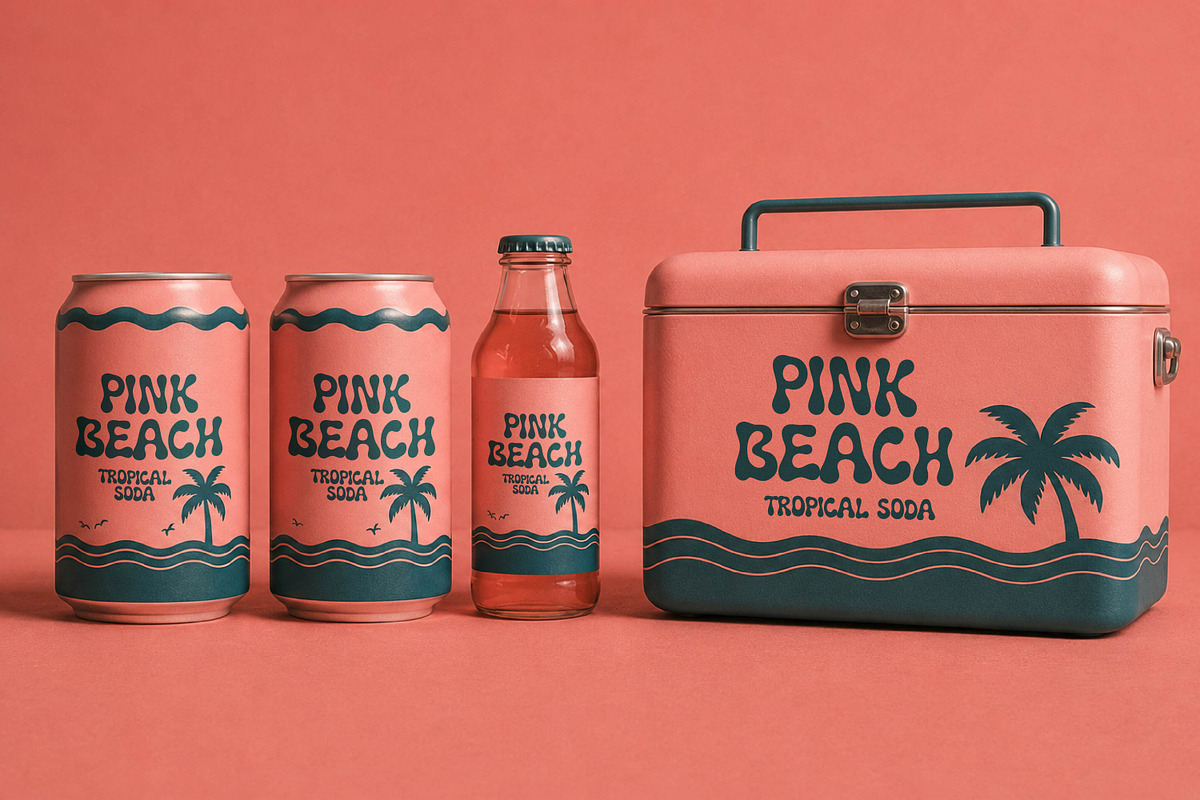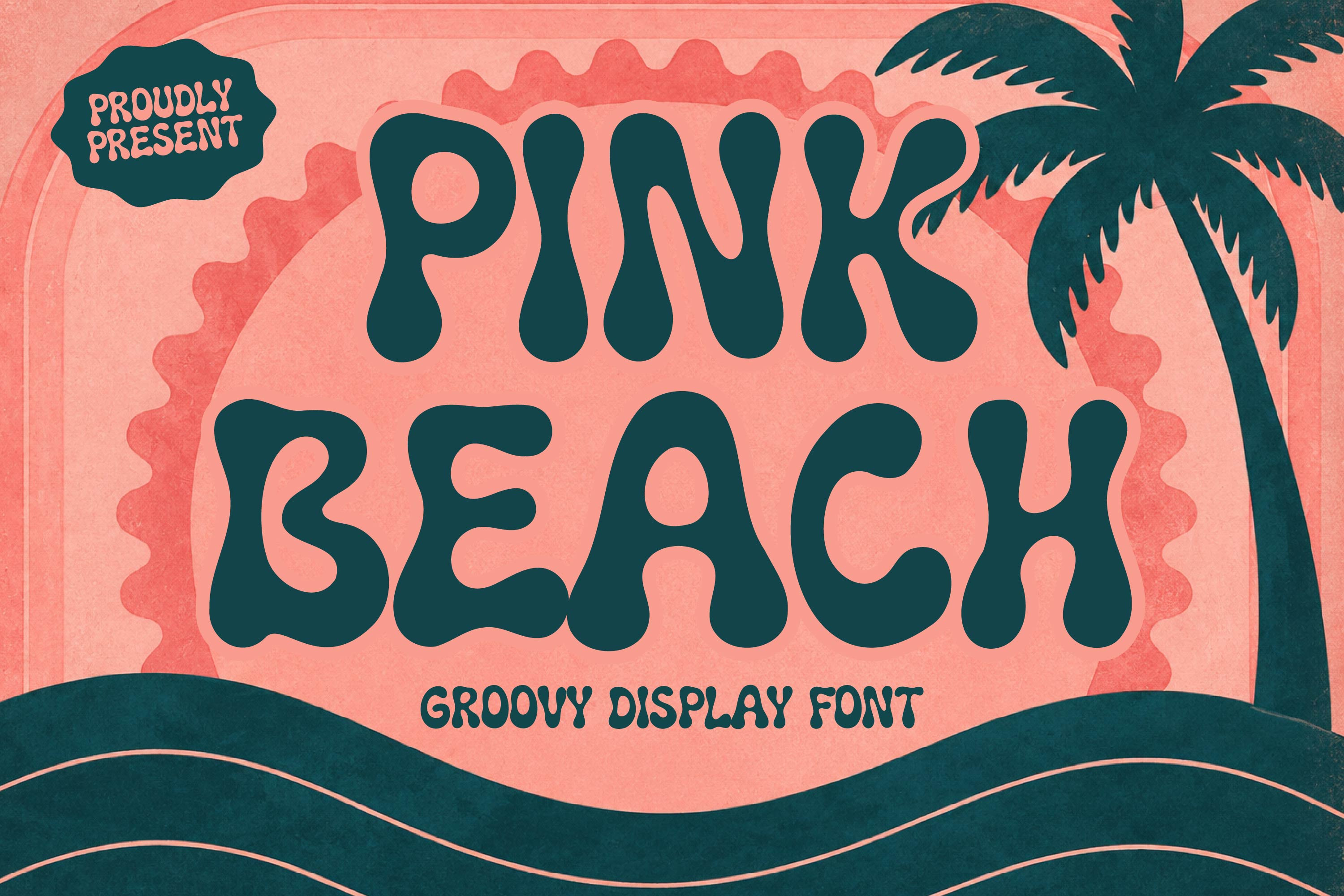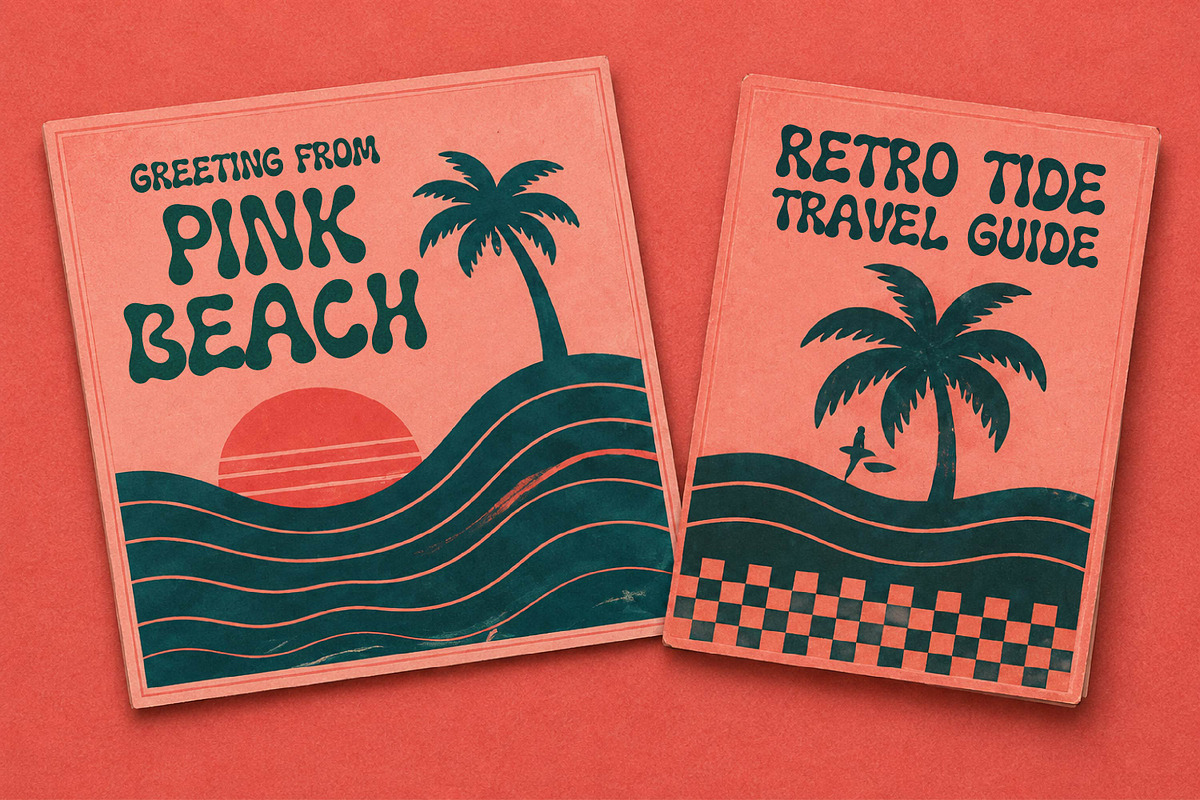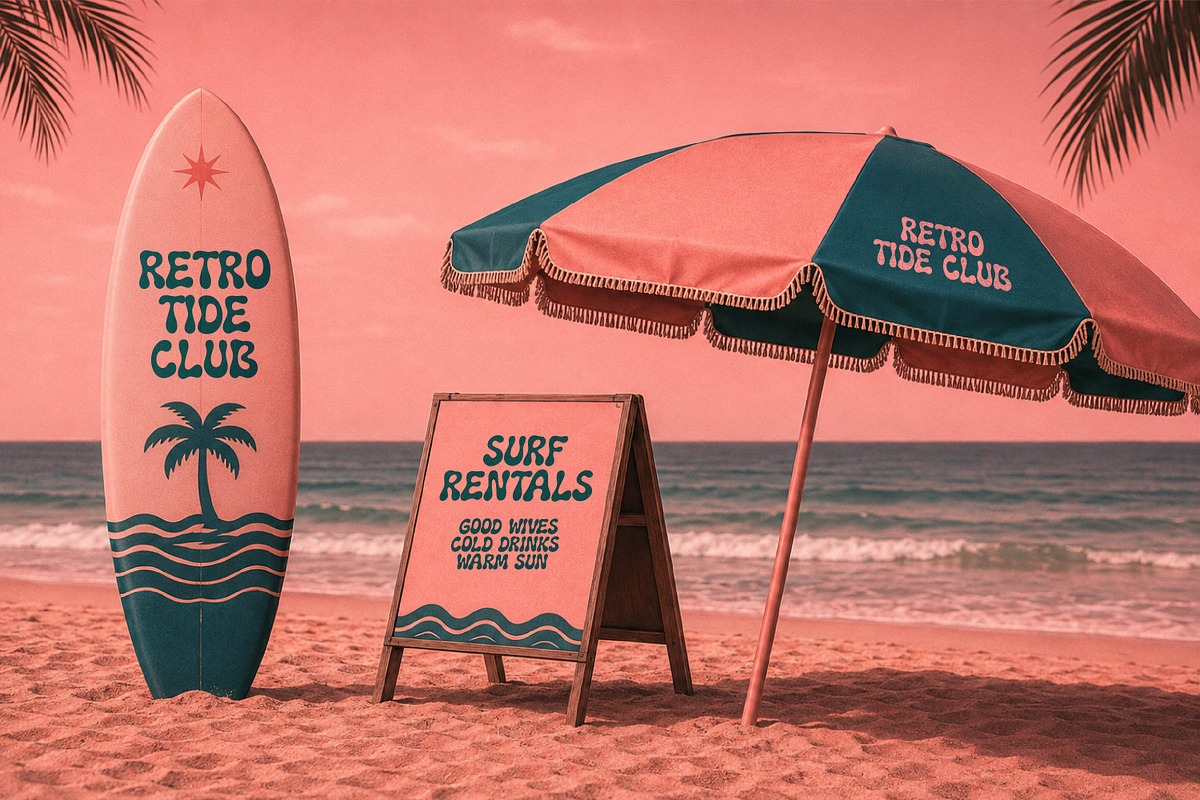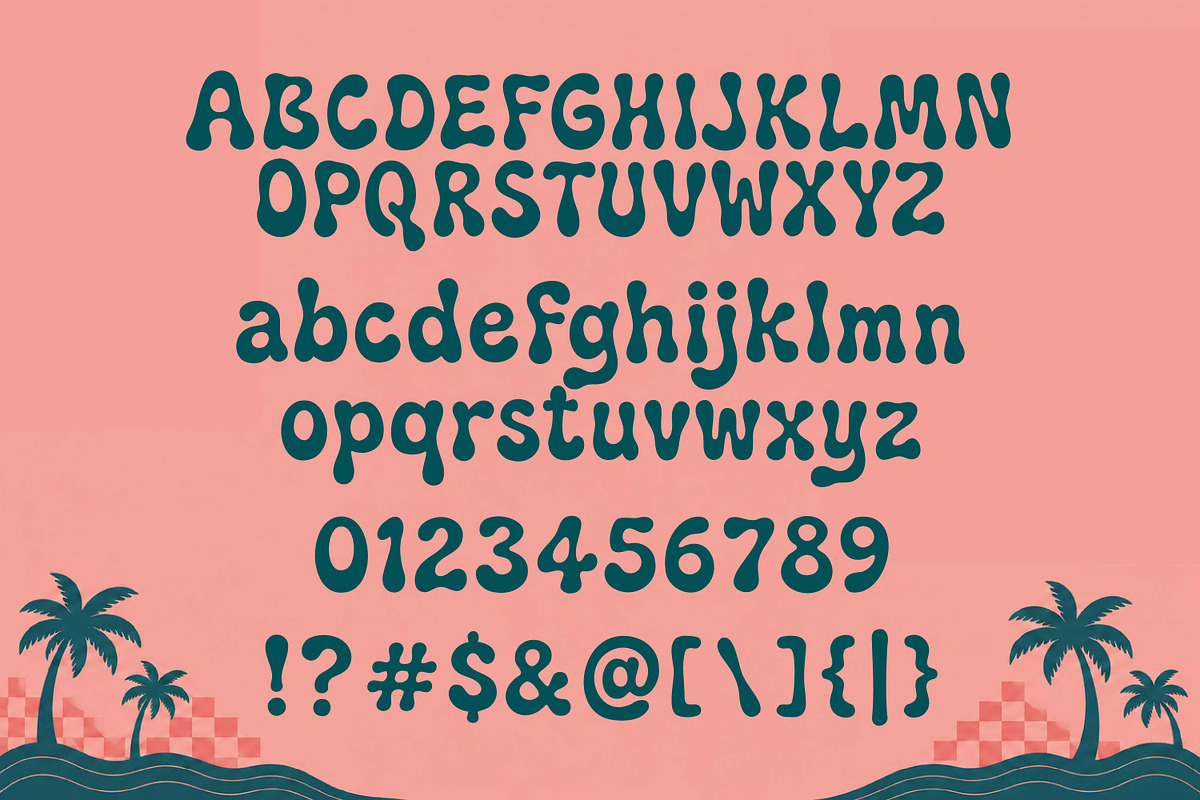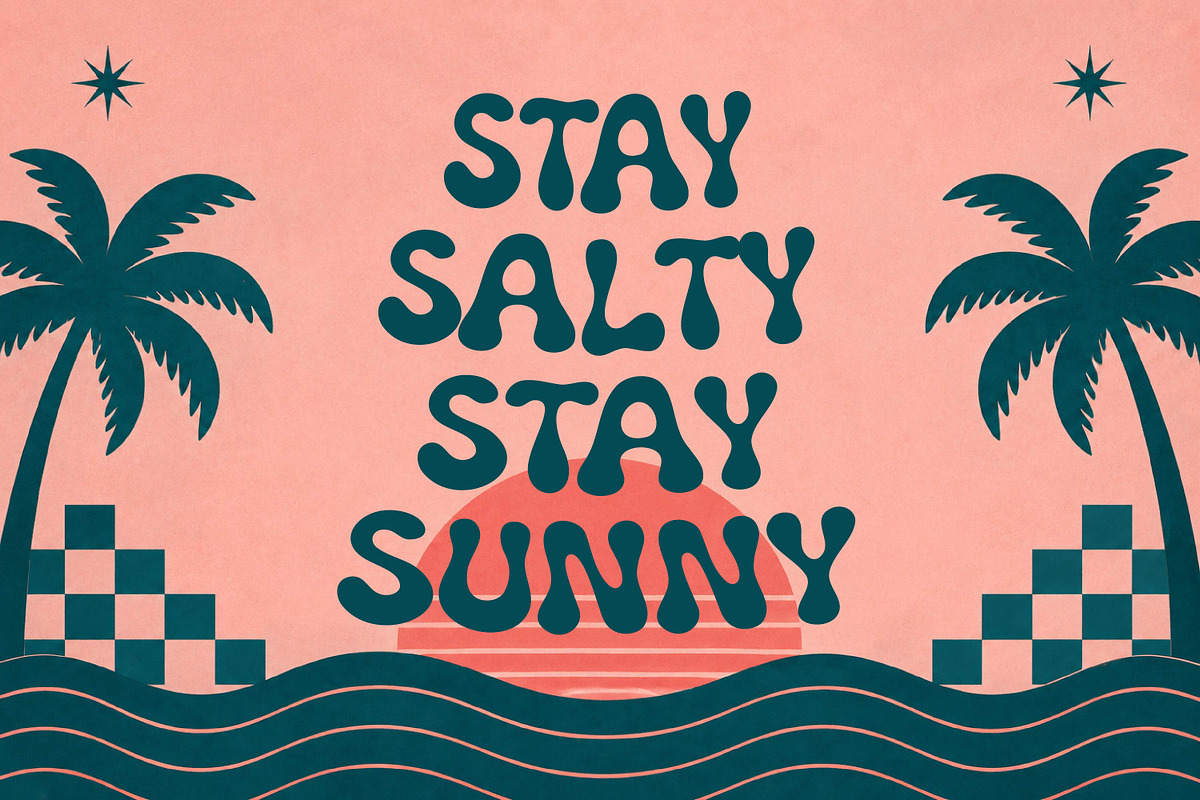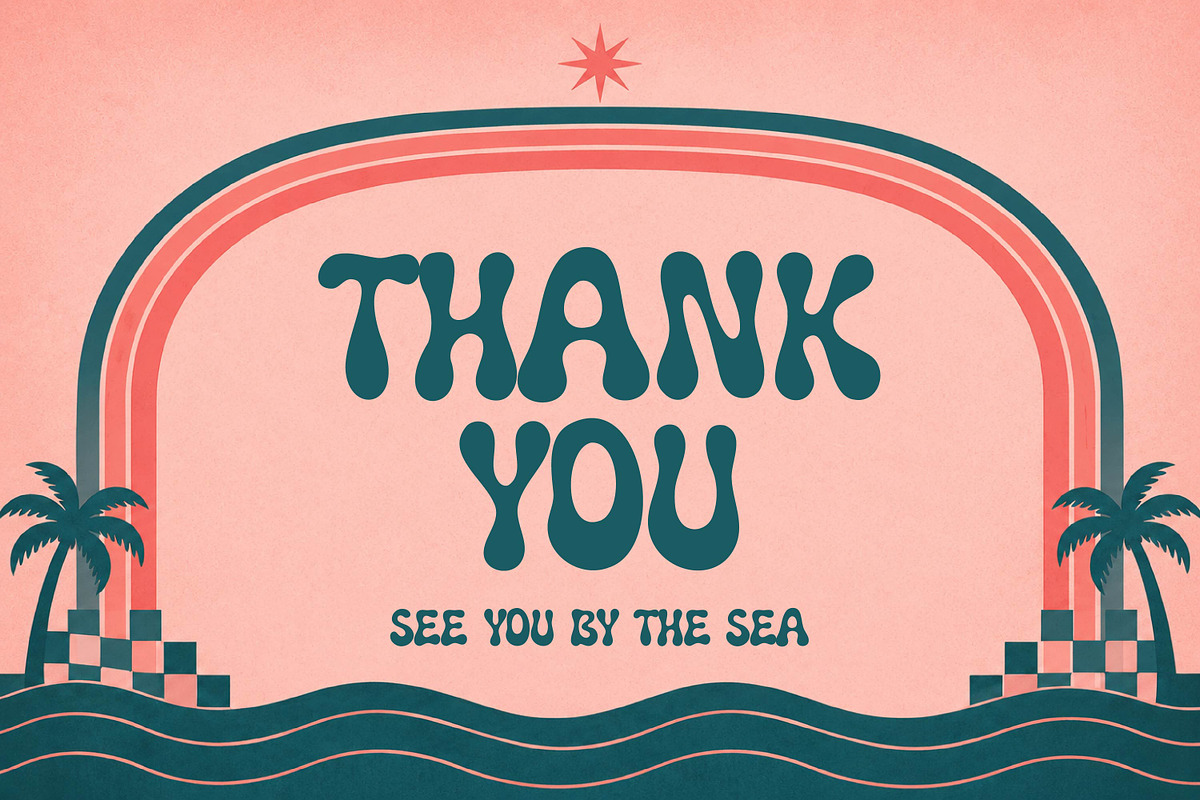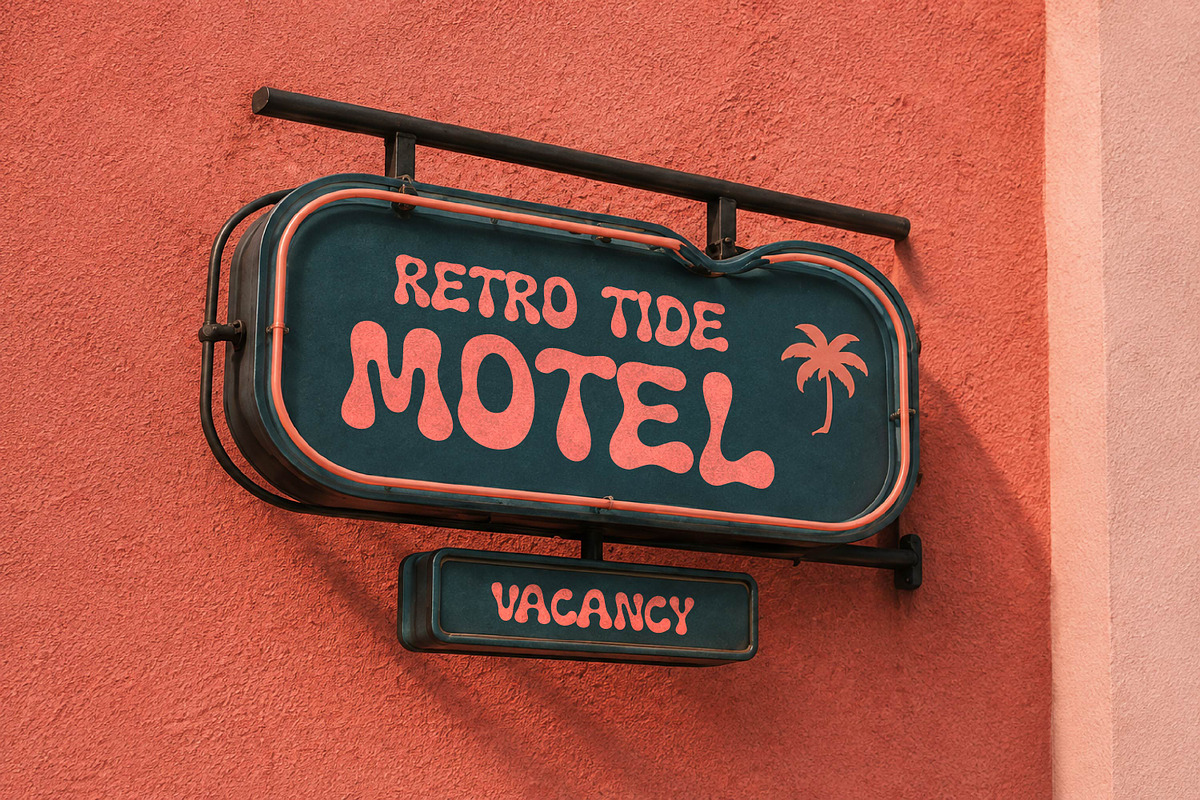
Pink Beach - Groovy Display Font
Pink Beach is a groovy display font with bold, wavy letterforms inspired by retro summer vibes and carefree tropical style. Perfect for posters, beach branding, packaging, social media, festivals, logos, and playful vintage-inspired designs.